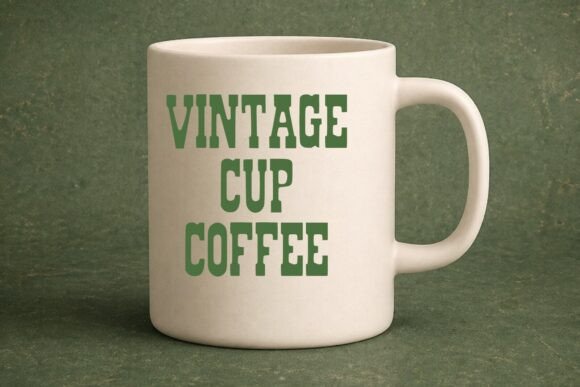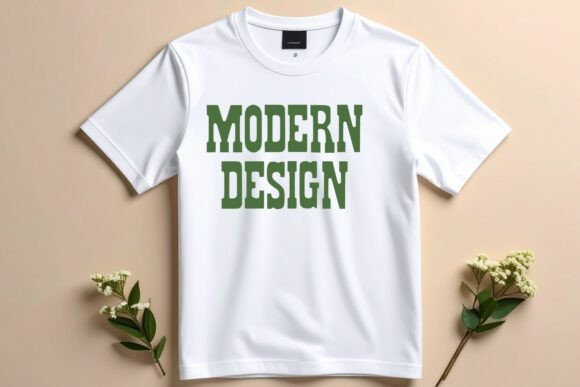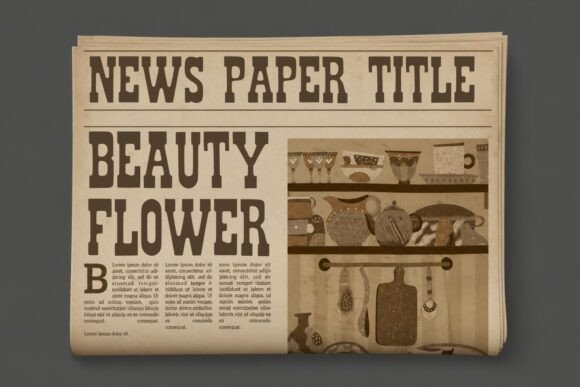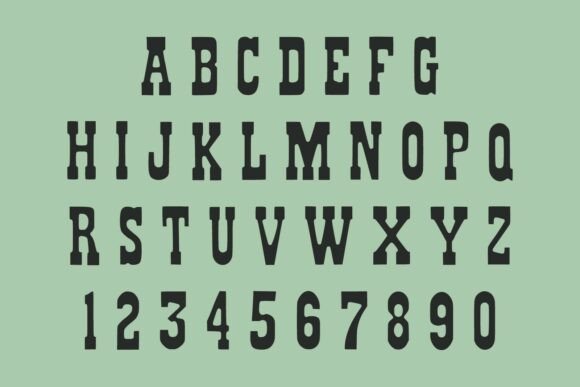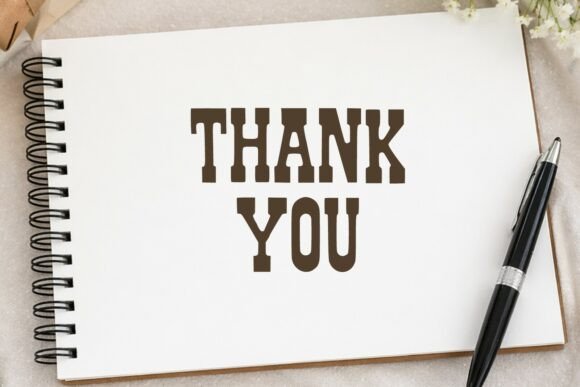
Introduction to Minimal Western Font Font
Fonts play a crucial role in design, and the Minimal Western Font font is a typeface that brings both character and versatility to any project. Whether you’re working on a branding project, a website, or a print design, the Minimal Western Font font offers a unique style that can elevate your work.
Minimal Western is a bold vintage display font that blends classic western style with a clean, minimal aesthetic.
Its strong slab-like letterforms and subtle retro character make it perfect for logos, posters, branding, t-shirt designs, packaging, and signage This font delivers a timeless western feel while staying modern and versatile, making it ideal for both rustic and contemporary design projects.
Key Features of Minimal Western Font Font
Why Choose Minimal Western Font Font?
The Minimal Western Font font is more than just a typeface – it’s a design tool that helps you communicate your message with style and clarity. Its unique character set and versatile design make it suitable for a wide range of applications, from elegant invitations to bold headlines.
With its carefully crafted letterforms and balanced proportions, the Minimal Western Font font ensures readability and visual appeal across all mediums.
What makes Minimal Western Font font special?
The Minimal Western Font font stands out with its unique design, exceptional readability, and versatility across various design applications.